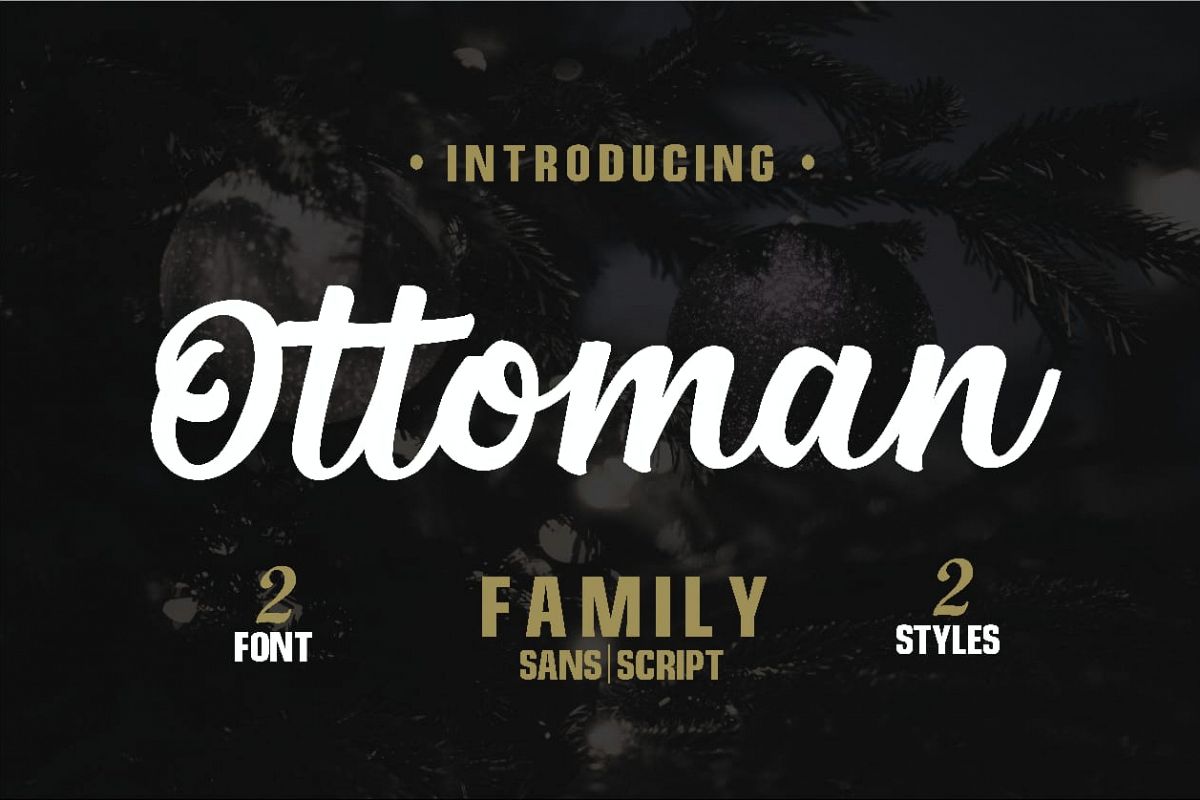
Ottoman Font Duo
Ottoman Swash
Ottoman Sans
Ottoman Script
The Ottoman is a modern font duo which comes in a sans and script version. It has an inspiring look which can be used for multiple designing needs.